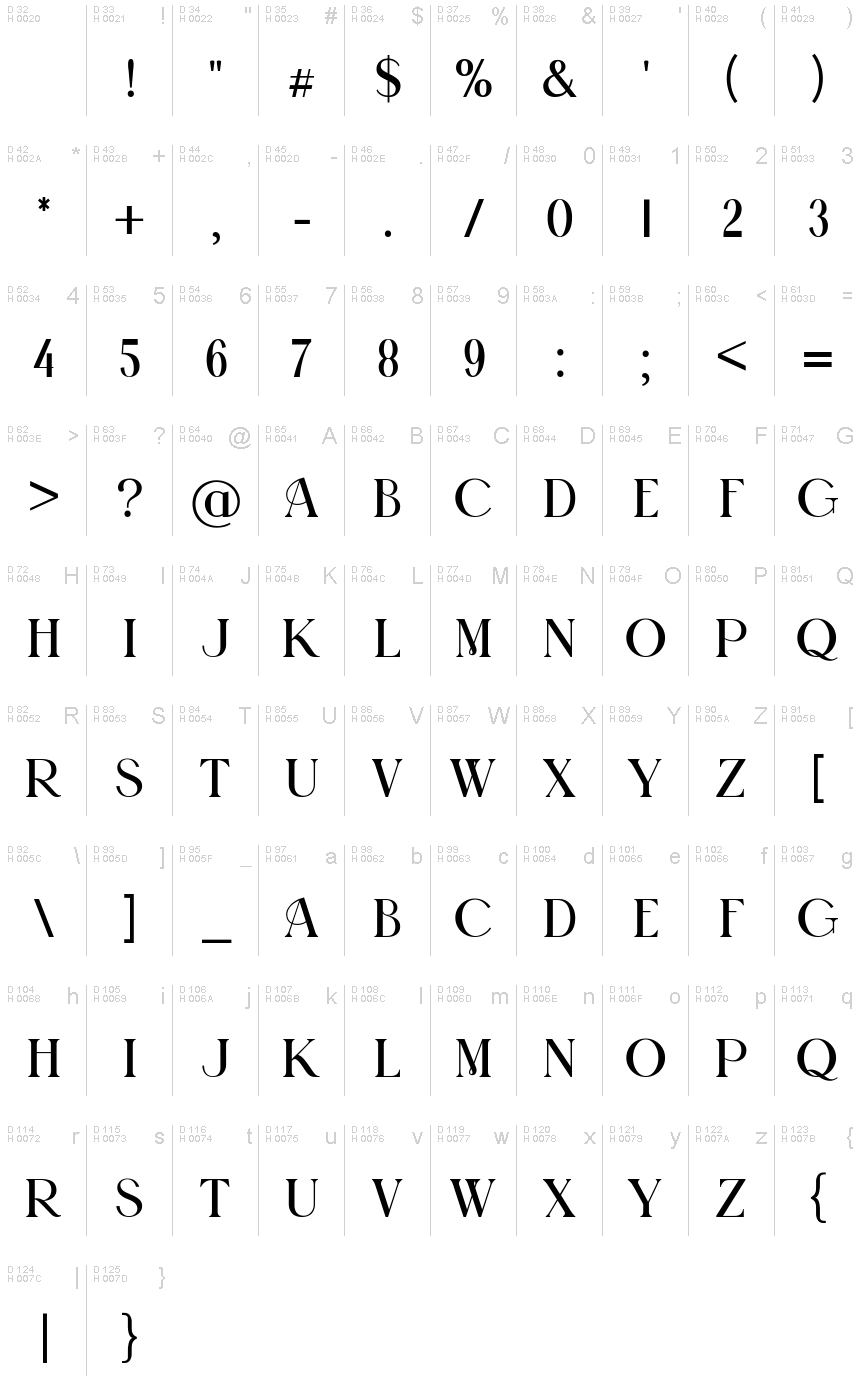
RomauntGaolines
Romaunt Gaolines, a captivating serif font crafted by UI Creative, exudes a timeless elegance with its refined strokes and subtle flourishes. This typeface's distinct personality seamlessly blends traditional charm with a modern sensibility, creating a visually compelling canvas for a wide range of design applications. Romaunt Gaolines' balanced proportions and impeccable legibility make it a delightful choice for projects seeking to convey a sense of sophistication and refinement.
Romaunt Gaolines' versatility allows it to shine in various contexts, from high-end editorial layouts and luxurious branding to captivating book covers and elegant stationery designs. Its versatile nature ensures a cohesive and visually harmonious presentation, making it an invaluable asset for designers seeking to elevate the aesthetic appeal of their work.